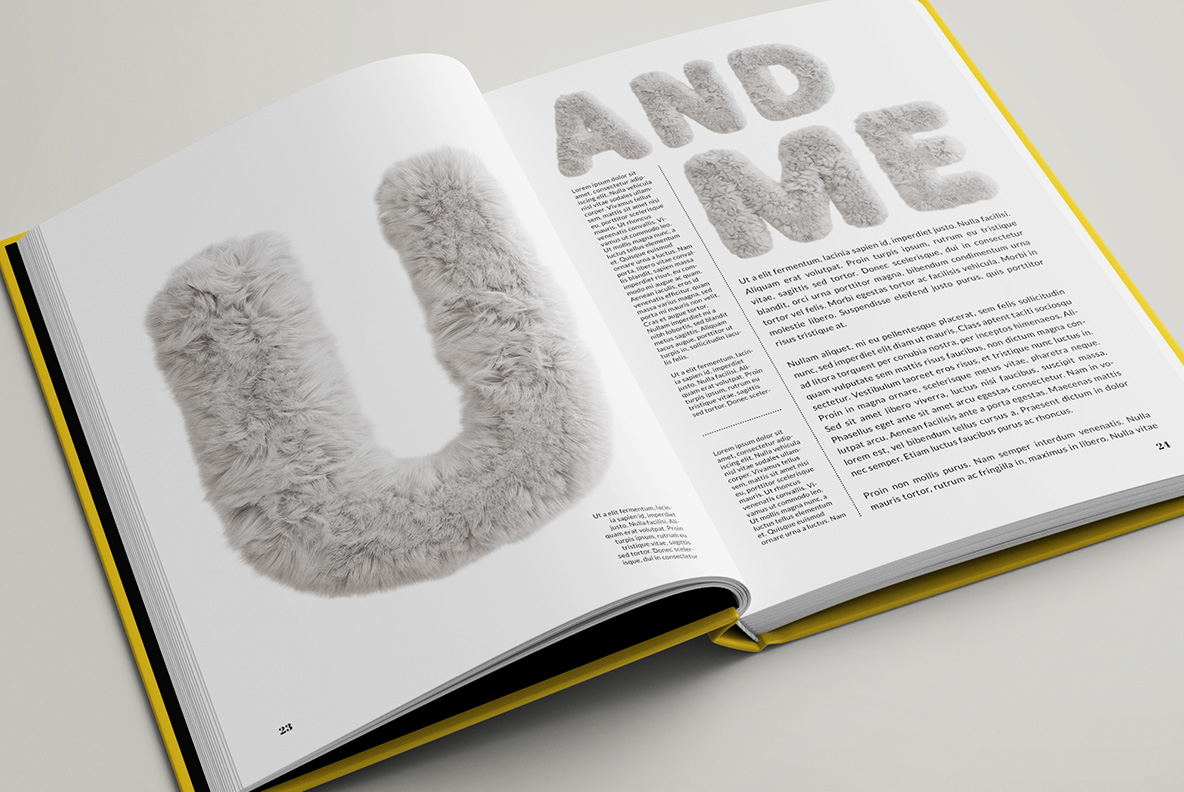
Yeti Font. A Fuzzy Alphabet for a Bold and Creative Design
Yeti Font hides a fat rounded sans under a deep coat of long, pale grey fur. Loose strands break every outline, and the pile drops soft shadows inside the letters themselves. Colour stays quiet, so bright backgrounds do the work. Good for winter covers, packaging, merch and anything that should look warm to touch.
Yeti Font Is a Rounded Sans Wearing a Sheepskin
Underneath the fluff, of course, sits a plain geometric sans with fat rounded strokes. Then the fur takes over, long and pale grey, lying in swirls and cowlicks. Strands stick out past every edge too, so no outline is ever quite straight. Because the pile is deep, the letters drop soft shadows into their own counters. The fringe is what sells it, since a halo of loose hairs catches the light. Up close the Yeti Font looks less printed than shorn off something.
Grey Fur, and Nothing Else to Worry About
Meanwhile colour stays in one narrow band, from near-white at the tips to warm grey underneath. That makes it easy to place, since whatever sits behind it does the shouting instead. In addition, magenta, purple, orange and deep teal all show up in the mockups, and all of them work. On black the letters glow, though on a pale ground they go quiet. The character sheet covers caps, numerals, currency signs and the usual punctuation as well.
Where the Yeti Font Turns Up Best
Naturally, a purple winter annual carries one enormous fur letter right across its cover. Then two red hardbacks stack up with a title pressed into white fluff. There is an orange carry bag as well, plus a black tee and a magazine spread. Meanwhile a macro crop shows just how deep the pile actually goes. Since the fur reads instantly at any size, packaging and merch suit it especially. All in all, winter campaigns, kids brands, ski shops and cosy podcast art fit best.
Unpacking the Yeti Font
Open magazine spread with large Yeti Font fur letters beside columns of text